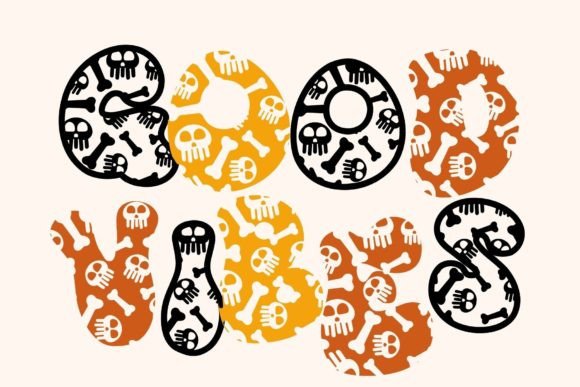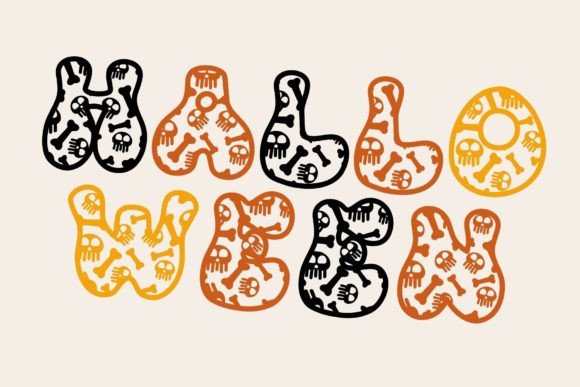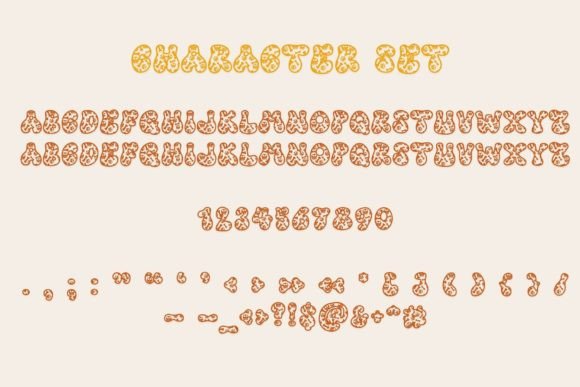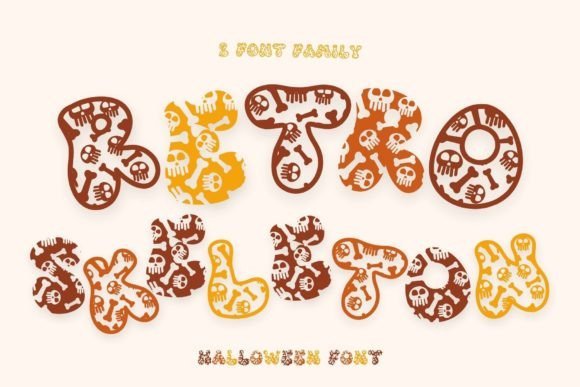
Introduction to Retro Skeleton Font
Retro Skeleton is a fun and unique decorative font.
This quirky Halloween font makes it the perfect choice for various projects, such as blog posts, logos, branding, ads, invitations, greeting cards, planners, photo albums, decorations, and much more Add it to any of your designs, and enjoy the results.
Retro Skeleton Font offers exceptional quality and versatility, making it a valuable addition to your design toolkit. Whether you’re creating for personal projects or commercial use, Retro Skeleton Font delivers professional results.